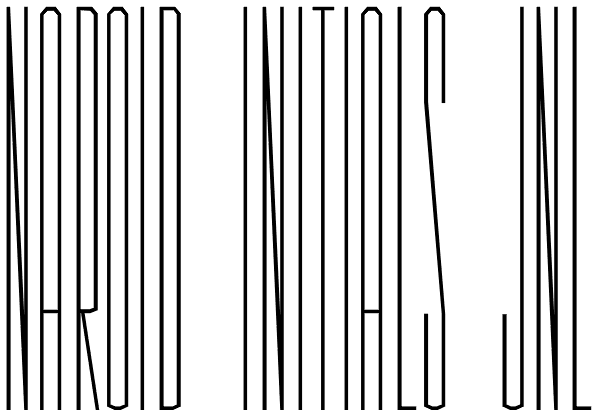
Naroid Initials JNL
Naroid Initials JNL is one of the most ultra-compressed sets of initials available in digital type. These twenty-six initials are so narrow that a test print with all of the letters at 2-1/2 inches in height took up no more than about 5 inches in...